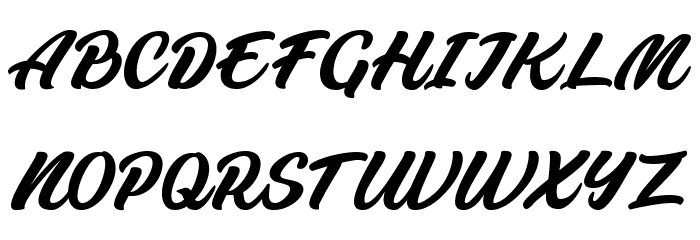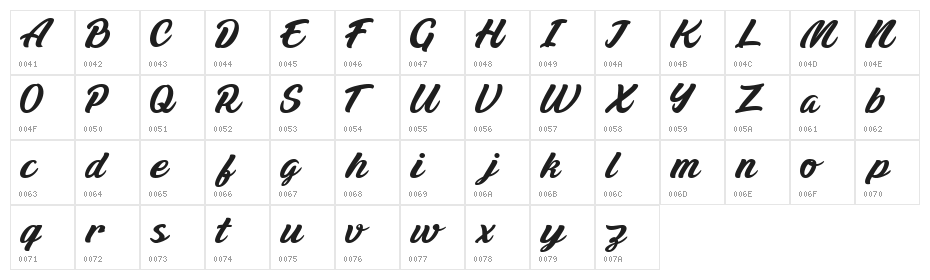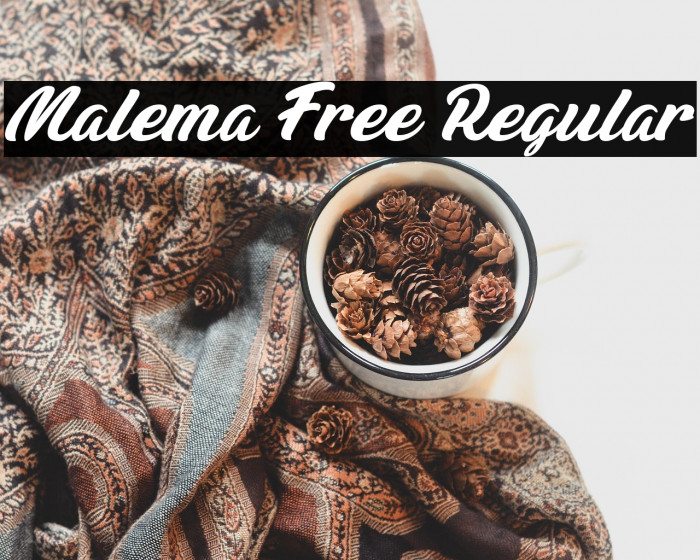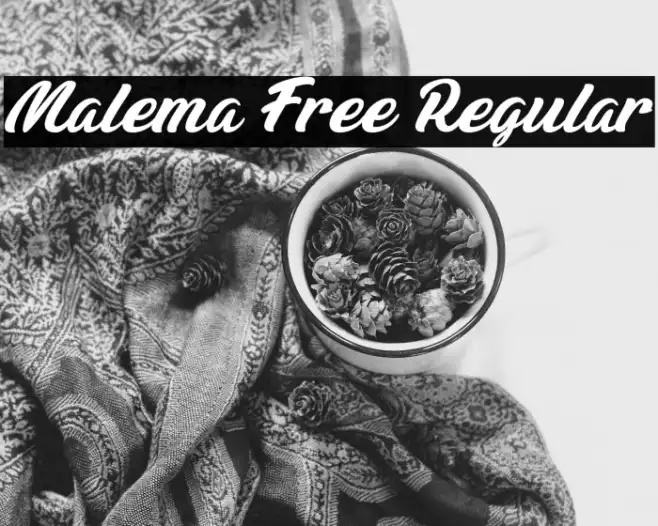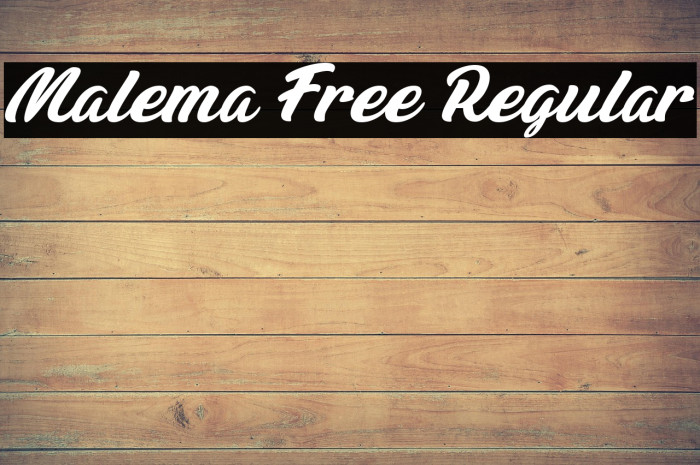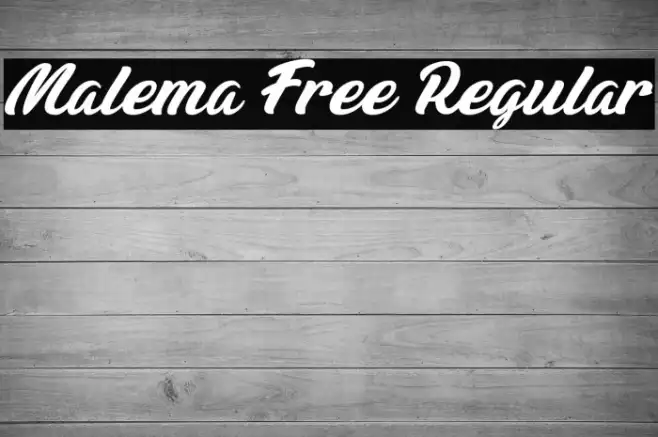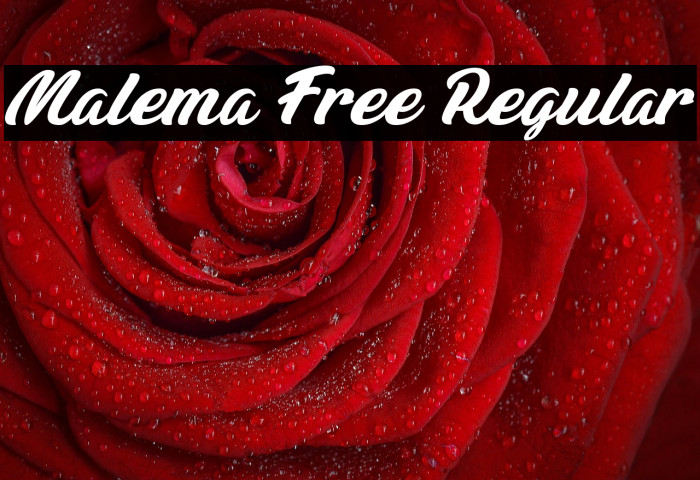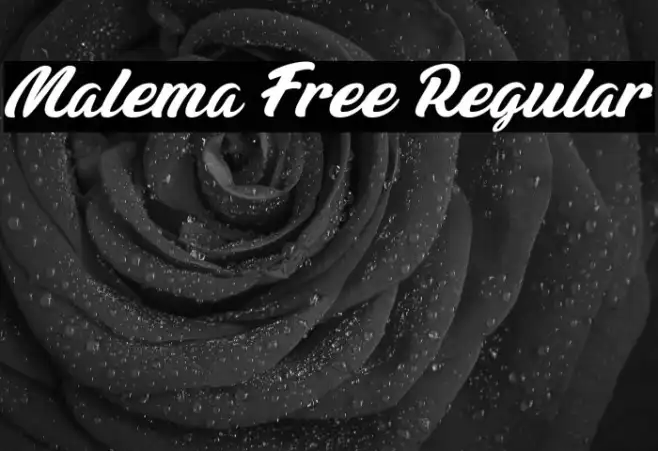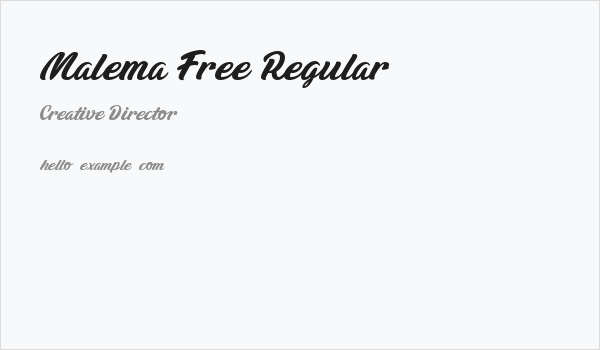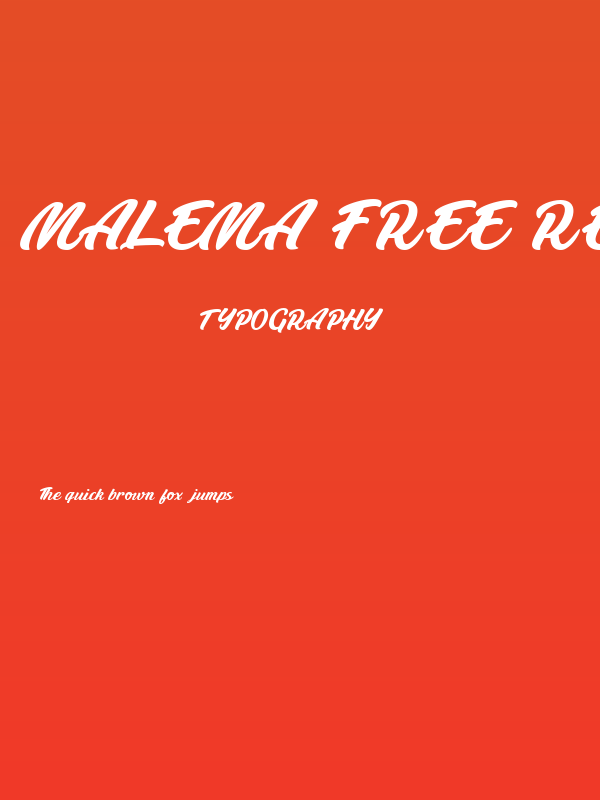
Malema Free Regular Font
Malema Free Regular Description
This font features a bold and flowing script style, characterized by its smooth, cursive letterforms that convey a sense of elegance and fluidity. The uppercase and lowercase letters are designed with a consistent stroke weight, creating a harmonious and balanced appearance. The characters are slightly slanted, enhancing the dynamic and lively feel of the font. The rounded edges and smooth curves contribute to its approachable and friendly aesthetic. This font is versatile, suitable for a variety of design applications where a personal and stylish touch is desired.